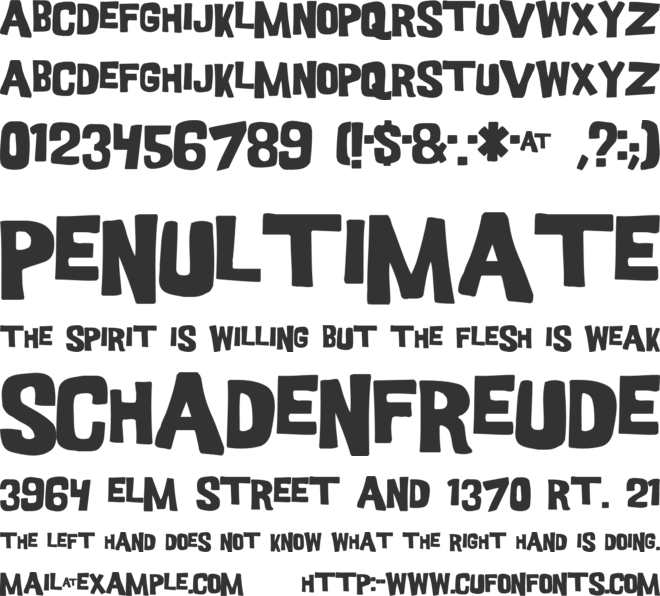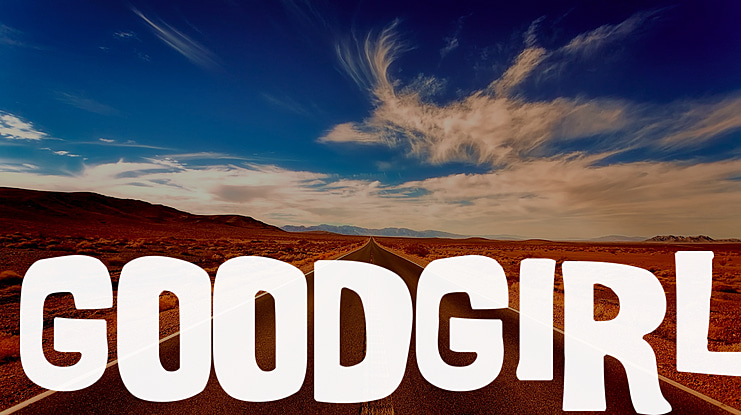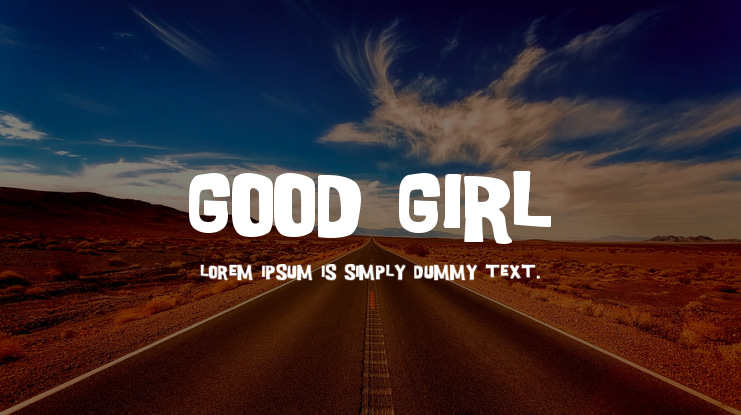
Good Girl Font
Good Girl was inspired by a font in 1960 Modern Teen magazine. Mail Cathy:  See Cathy's work: http://charity.artificial.com No copyright; use as you wish.